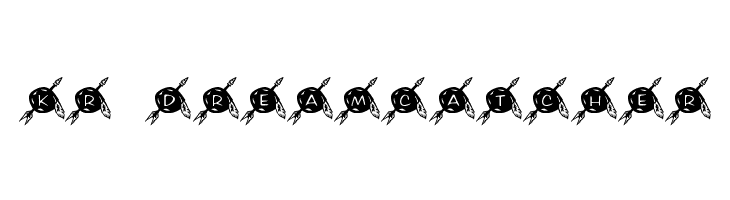
A decorative font with letters encased in dreamcatcher motifs, featuring feather details.
A decorative font with letters inside dreamcatcher designs, featuring feather details.